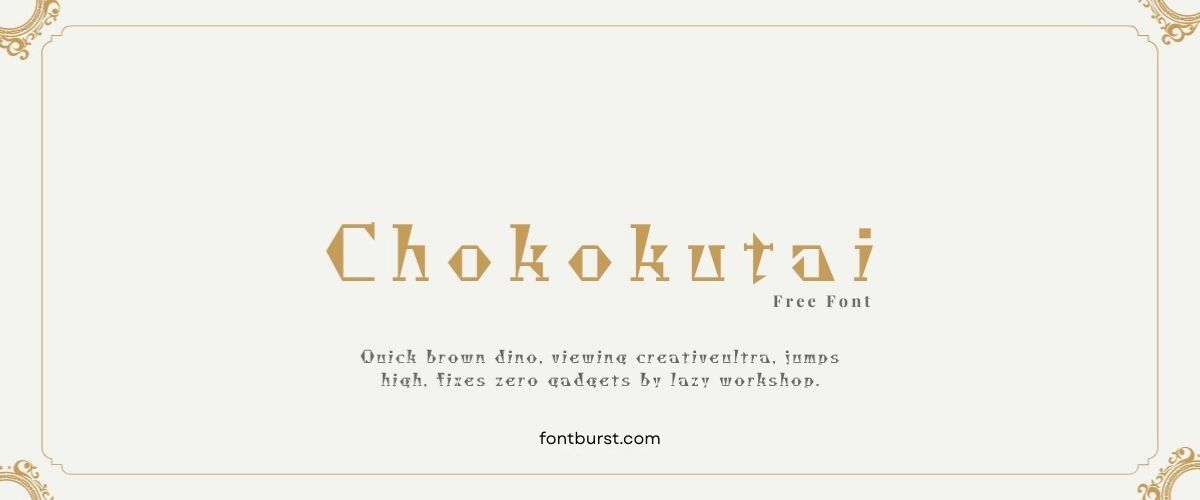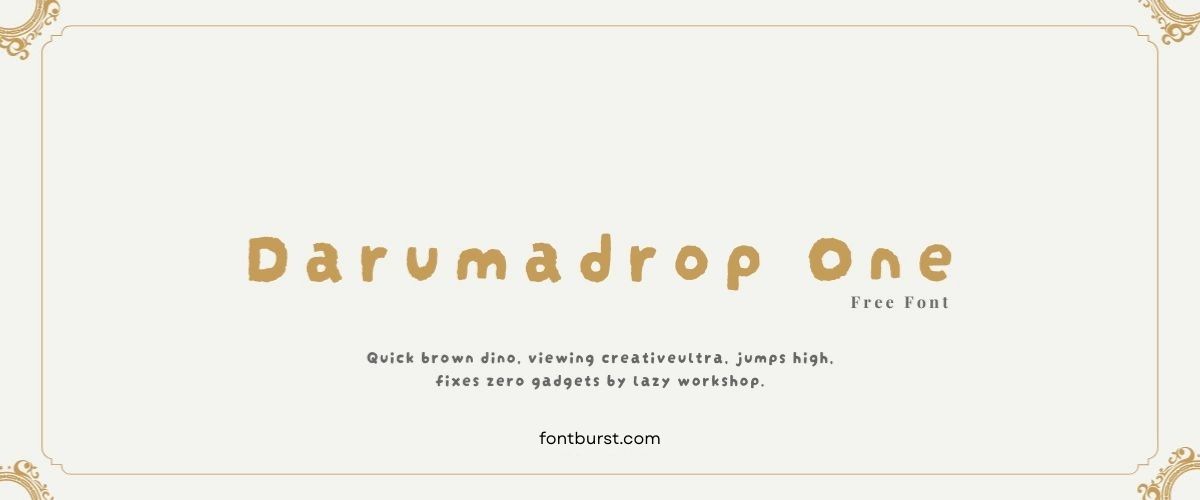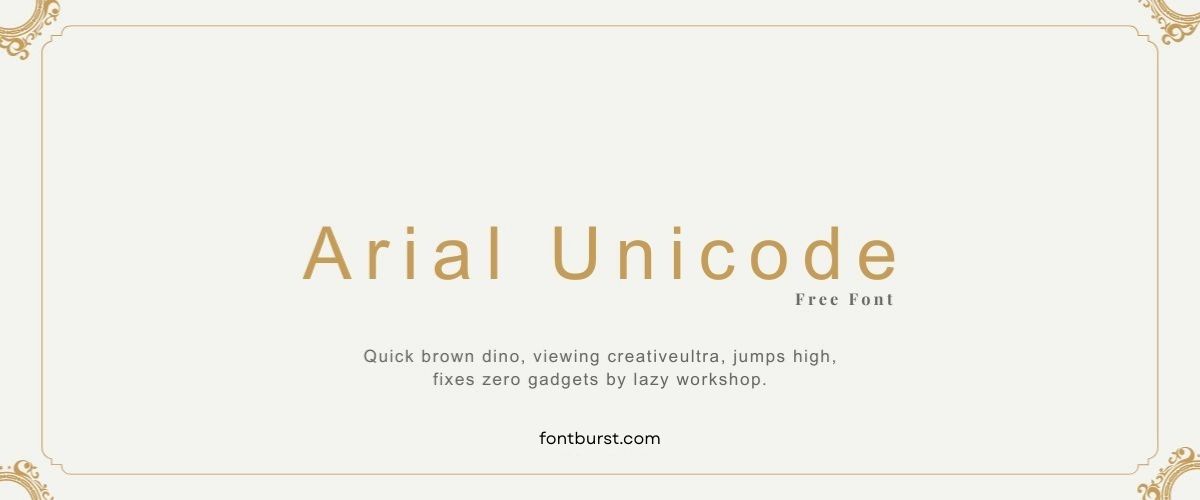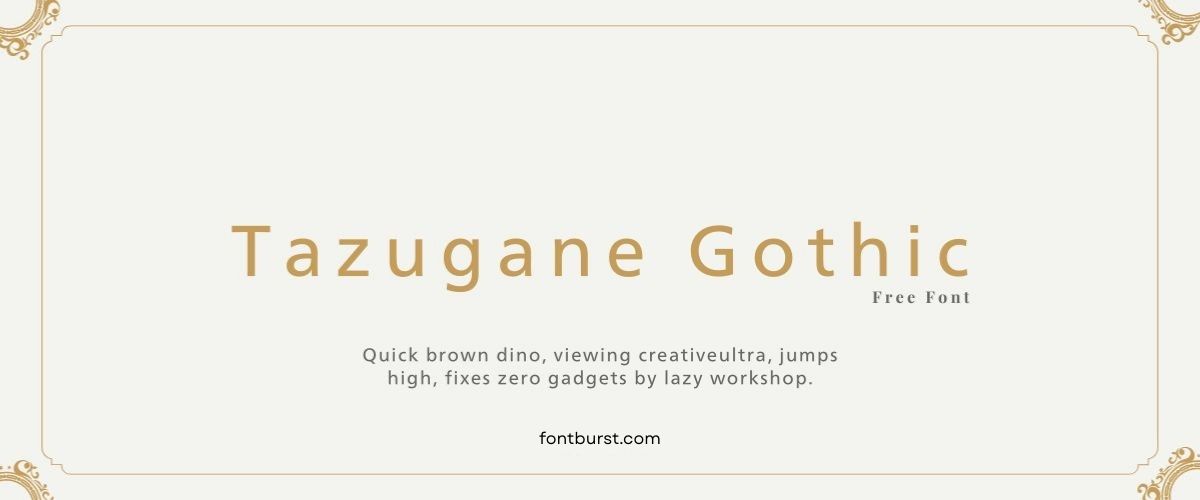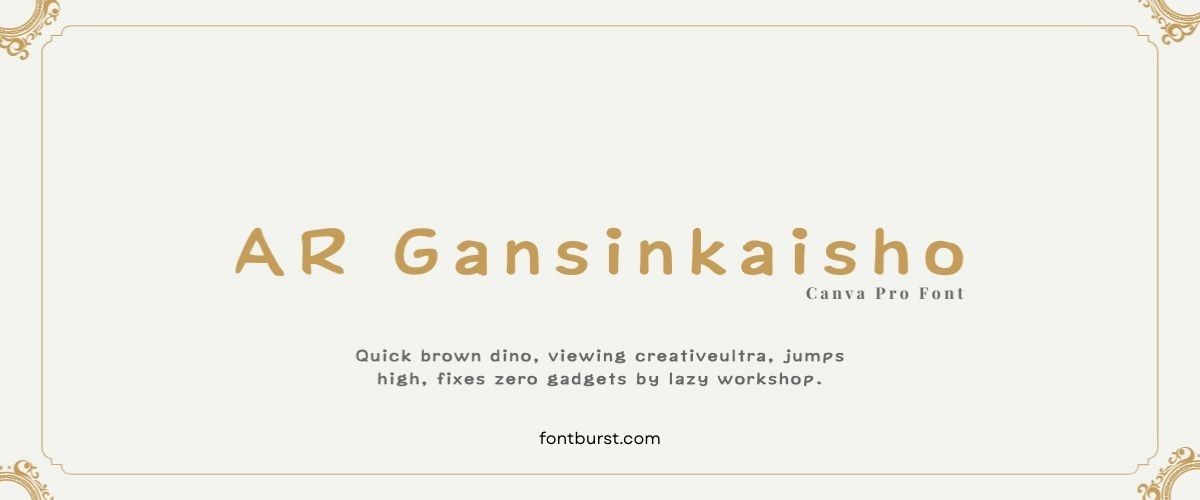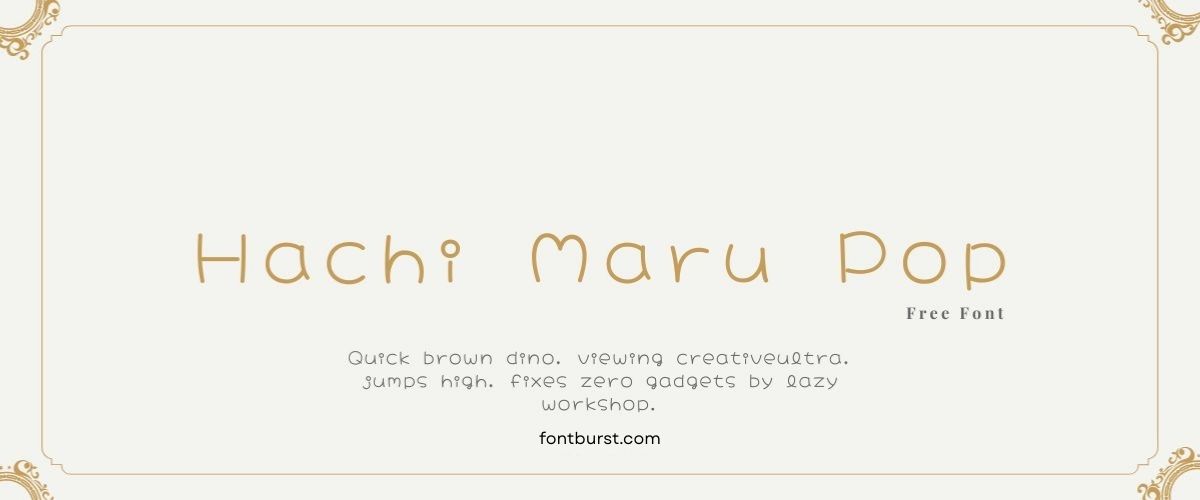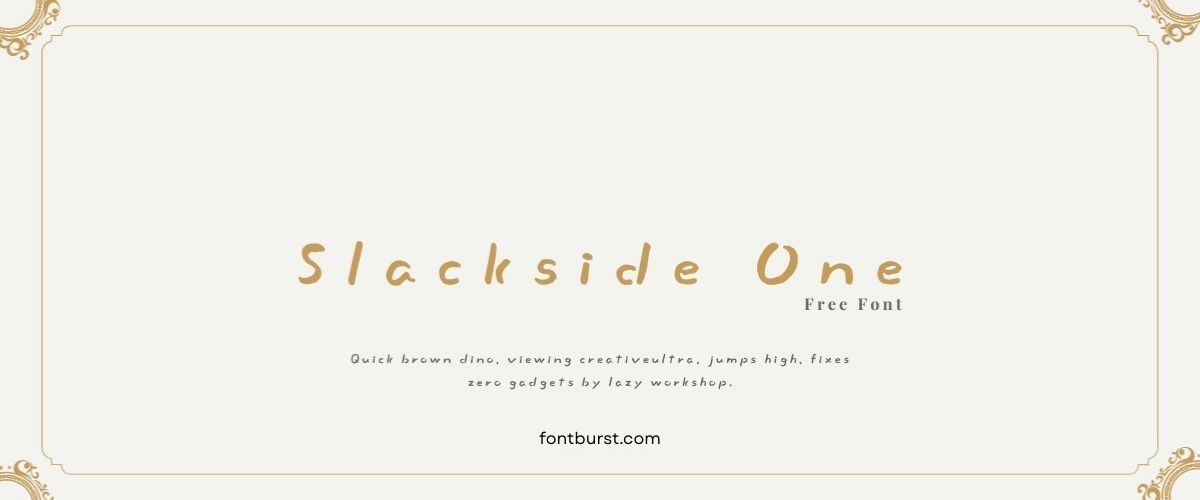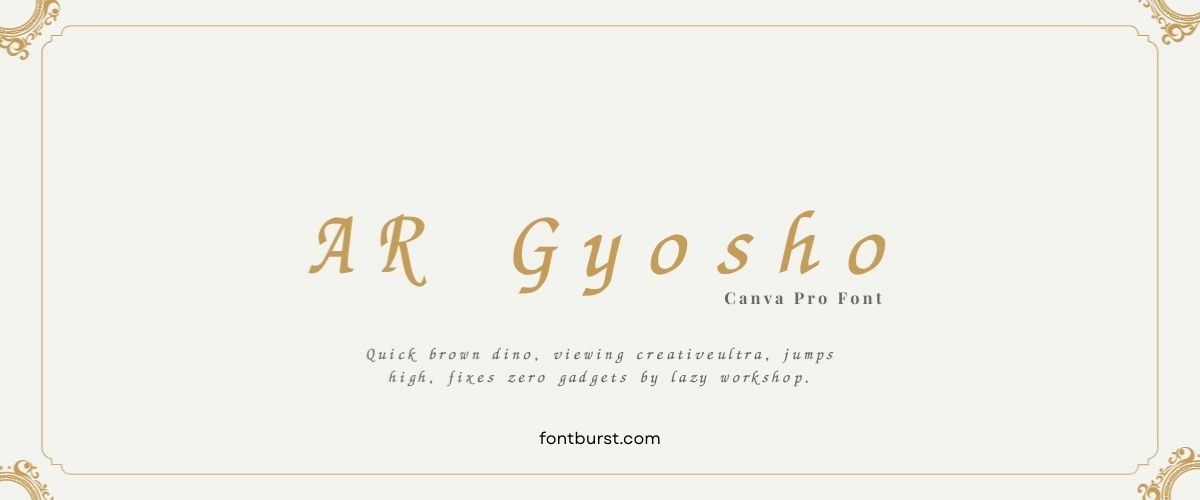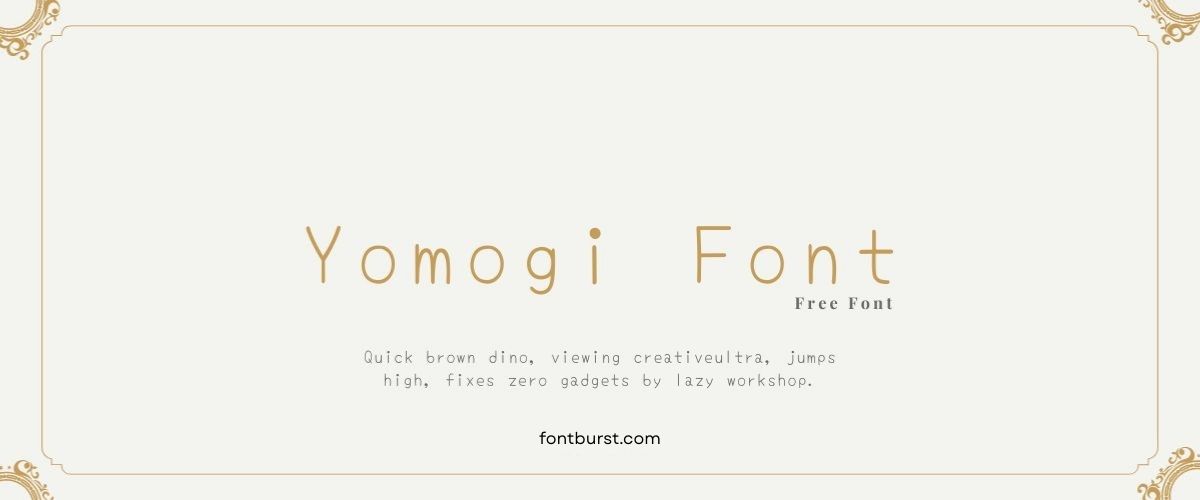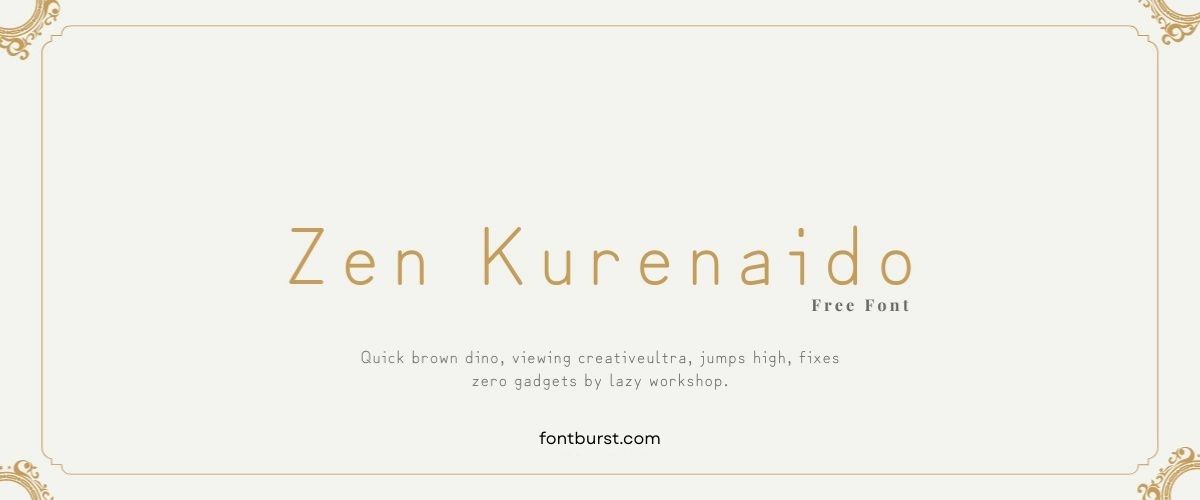
The Best Japanese Fonts in Canva
Are you on the hunt for the best Japanese fonts on Canva to spice up your designs? Whether you’re putting together a flyer for a sushi spot, crafting a presentation about Japanese culture, or just love the style of Japanese writing, Canva has a bunch of fonts that could fit your needs. Japanese fonts can give your projects a true feel of Japan, showing off the beauty and distinctiveness of Japanese calligraphy and type design.
Picking the right Japanese font isn’t just about picking something that looks good; it’s about finding a font that fits the mood and the content of your project. In this article, we’ll look at some top Japanese fonts available in Canva, why you might want to use them, and some tips on how to pick the perfect one for your needs.
Why Use Japanese Fonts
Japanese fonts add a special cultural touch to any design, making your work pop. These fonts range from traditional calligraphy styles, which echo centuries of Japanese art and writing, to sleek and simple designs that reflect modern Japanese looks. Using Japanese fonts isn’t just for show; it brings a sense of realness and cultural respect to your designs. They can make your messages stick in people’s minds, especially if you’re reaching out to an audience that knows about or is interested in Japanese culture.
Choosing the Best Japanese Fonts in Canva
When you pick a Japanese font in Canva, think about these points:
- Context and Audience: Consider where and how the font will be used and who will see it. A traditional calligraphy style might be perfect for formal invites or cultural talks, while a modern style could work better for business or casual projects.
- Legibility: While many Japanese fonts are pretty, they need to be easy to read. Make sure the characters are clear and easy to see, especially if the text is important for understanding the content.
- Design Balance: Matching a bold or detailed Japanese font with a simpler font can help keep your design balanced and prevent it from being too busy. This way, the Japanese font will catch the eye without messing up the overall look of your design.
The Best Japanese Fonts in Canva
Aoboshi One Font
Aoboshi One Font is sleek and modern, perfect for digital designs that need a touch of sophistication. Its clean lines make it highly readable, which is ideal for website headers or presentation titles where clarity is key.
Chokokutai Font
Chokokutai Font stands out with its bold and blocky style, making a strong visual impact. This font is best suited for posters or advertisements where you want the text to grab attention and make a statement.
Darumadrop One Font
Darumadrop One Font features playful, rounded edges that convey a soft and friendly vibe. It’s excellent for children’s book covers, educational materials, or any project that aims to appear approachable and fun.
Arial Unicode Font
Arial Unicode Font is a versatile and comprehensive font that supports multiple languages, including Japanese. Its simple and familiar look makes it a reliable choice for business documents and professional presentations.
Tazugane Gothic Font
Tazugane Gothic Font merges traditional Gothic sensibilities with a contemporary twist. Its balanced structure offers elegance and readability, suitable for both print and digital media in corporate and creative settings.
AR Gansinkaisho Font
AR Gansinkaisho Font brings the beauty of Japanese calligraphy into digital form. With its brush stroke style, it adds an artistic touch to invitations, decorative pieces, and any content that desires a handcrafted feel.
Hachi Maru Pop Font
Hachi Maru Pop Font is cute and casual, with a bubbly appearance that works well in casual communications, comic strips, and animation projects. Its light-hearted style enhances content meant to be fun and engaging.
Slackside One Font
Slackside One Font offers an unconventional look with its uneven lettering and quirky style. Ideal for artistic projects or unique branding initiatives, it helps text stand out with its original and creative appearance.
AR Gyosho Font
AR Gyosho Font is elegant and flows like traditional Japanese handwriting. This font is perfect for formal invitations, restaurant menus, and any setting where a touch of grace and tradition is needed.
Yomogi Font
Yomogi Font is informal and unassuming, with a hand-drawn feel that’s perfect for personal blogs, DIY project instructions, or any platform that values a personal touch.
Zen Kurenaido Font
Zen Kurenaido Font is minimalist and clean, reflecting the Zen philosophy of simplicity. It’s ideal for designs that require a tranquil and serene typography, such as spa or wellness center marketing.
Amatohoso Font
Amatohoso Font is extremely thin and delicate, conveying elegance and subtlety. It works beautifully in high-fashion magazines, luxury brand logos, or any design that calls for a refined and sophisticated look.